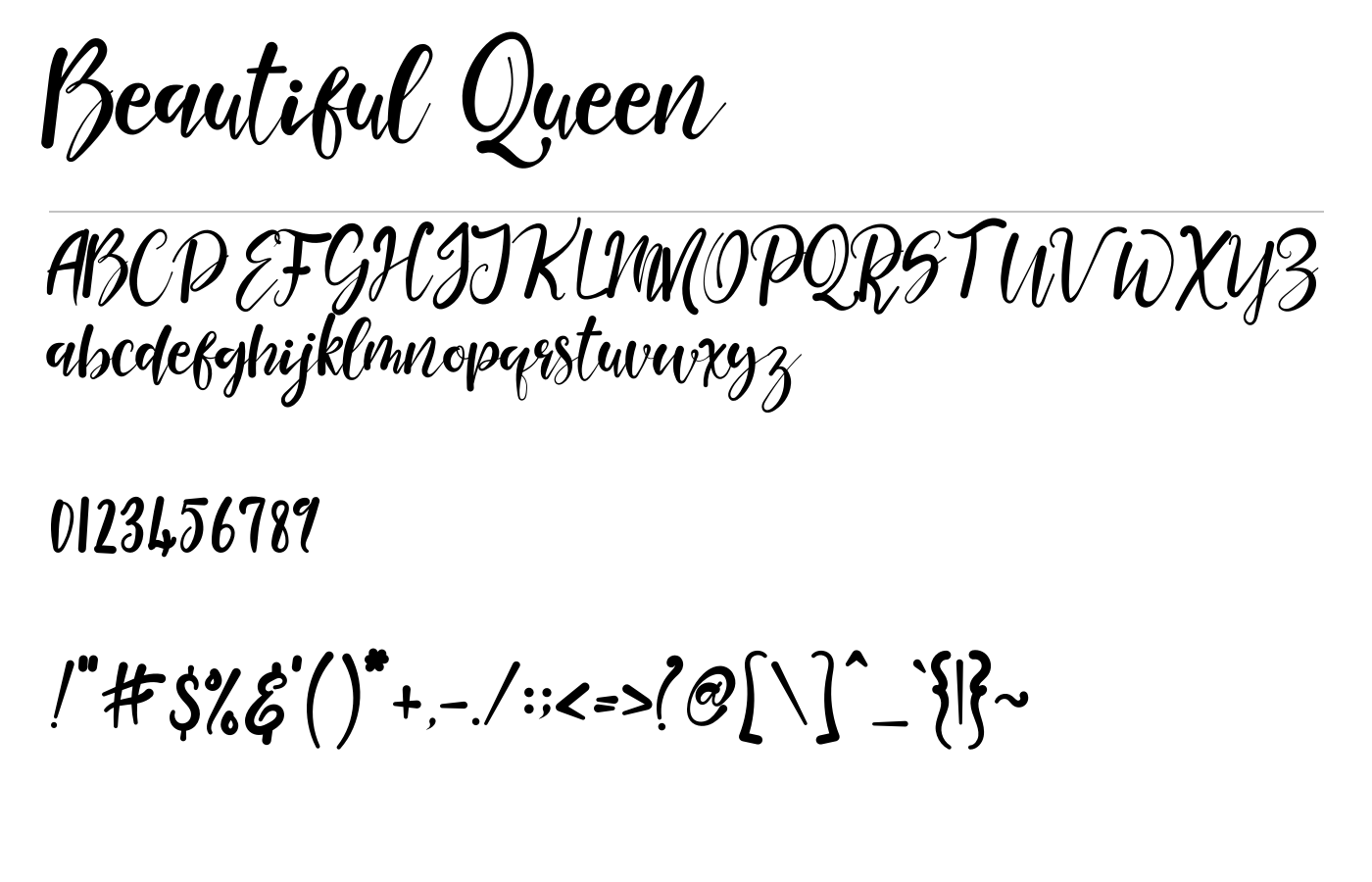
Beautiful Queen is a graceful script font with a lively, hand-lettered feel, featuring elegant, flowing strokes that combine both thick and thin contrasts for a dynamic look. Its stylish uppercase and lowercase letters showcase smooth curves and unique letterforms, making it ideal for feminine branding, invitations, and modern designs that need a touch of charm and sophistication. This font works beautifully in headlines, logos, and decorative text where a personal, artistic flair is desired.
Beautiful Queen Font
About Beautiful Queen Font
| Font family | Beautiful Queen Font |
| Designer | Dedi Mujiono |